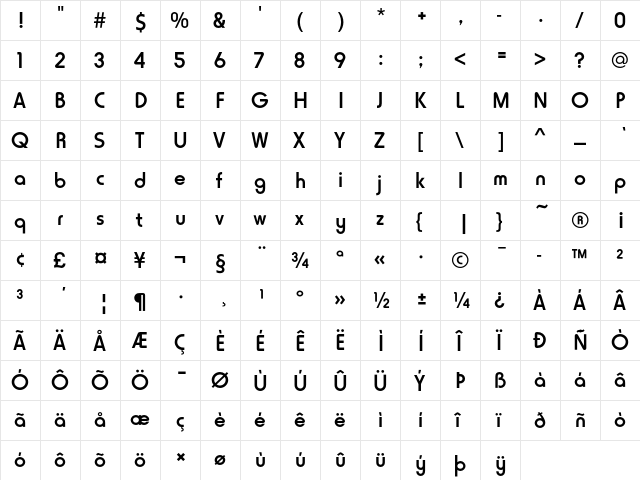
Horatio D Medium
Design Context for Horatio D Typeface
Horatio D is a composed and adaptable typeface that performs quietly and consistently across a wide range of design contexts.